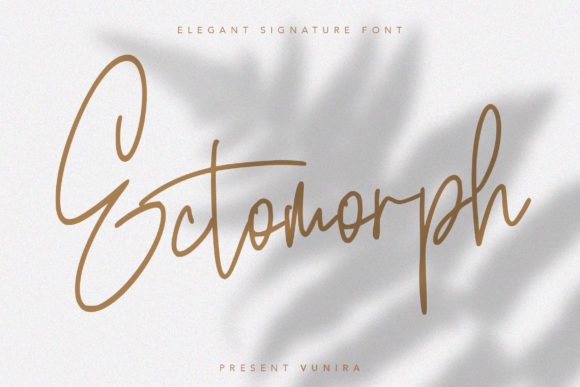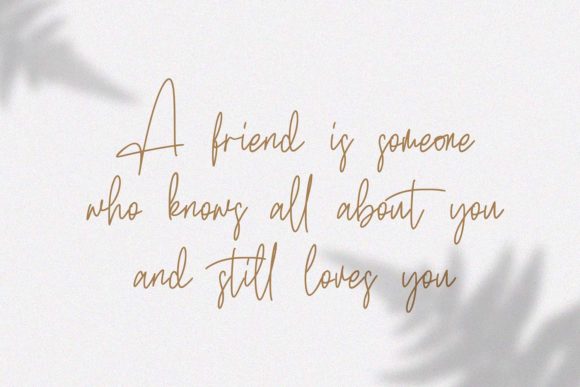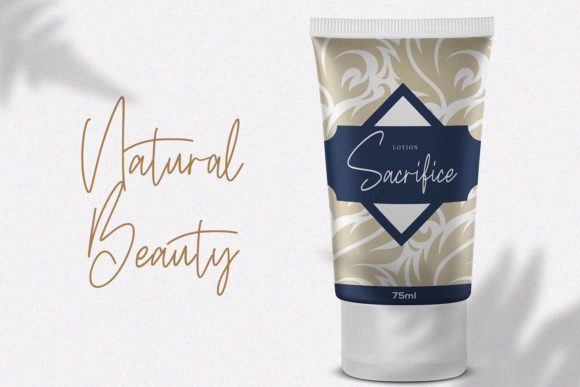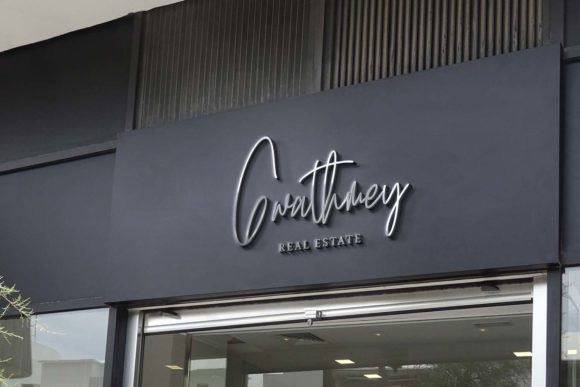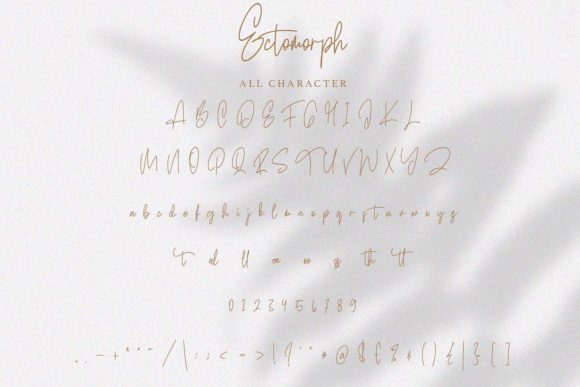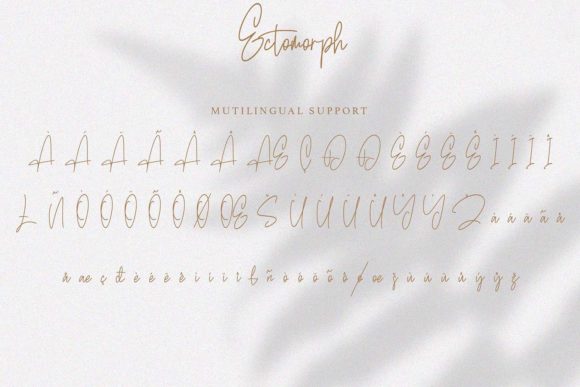
Ectomorph Font
About Ectomorph Font
Ectomorph is a relaxed and timeless handwritten font. Incredibly versatile, this font fits a wide variety of designs. Add it to your favorite projects and make them come alive!